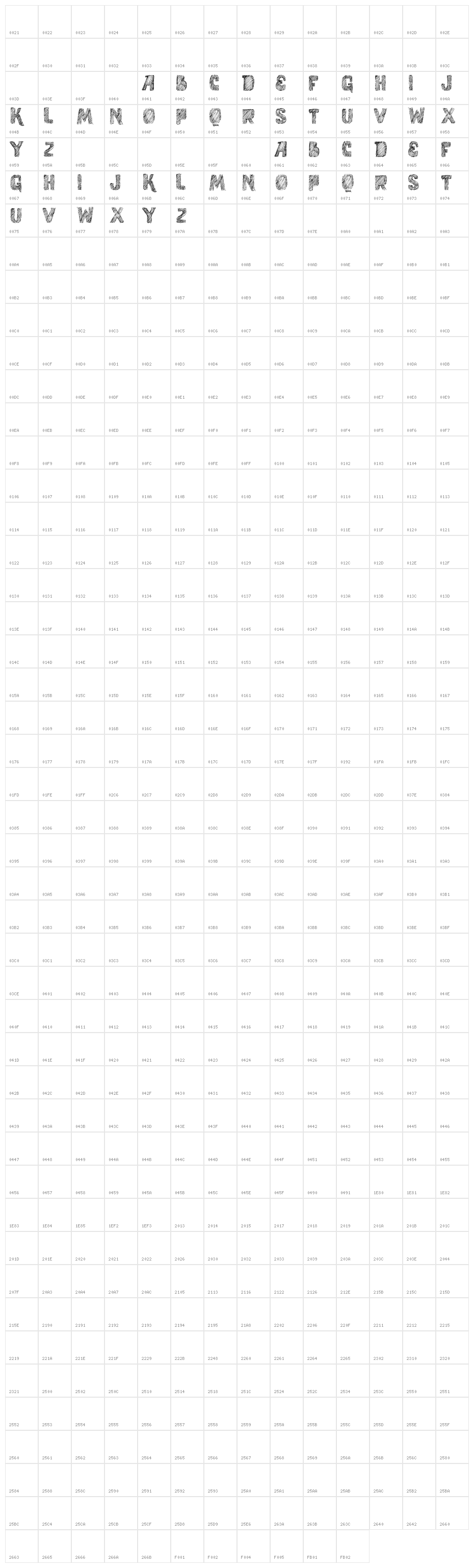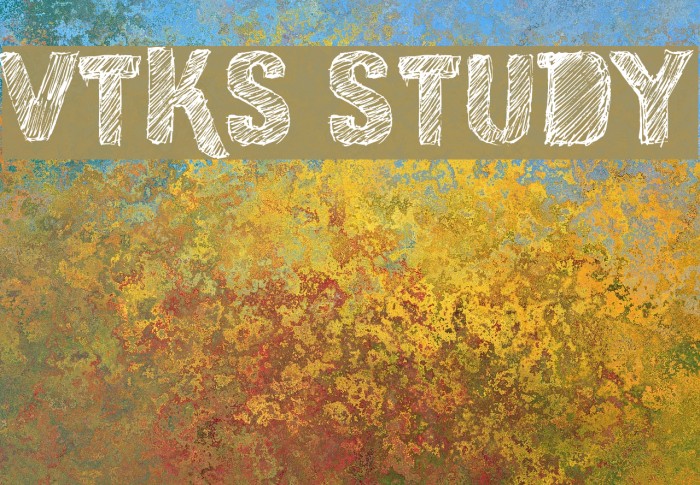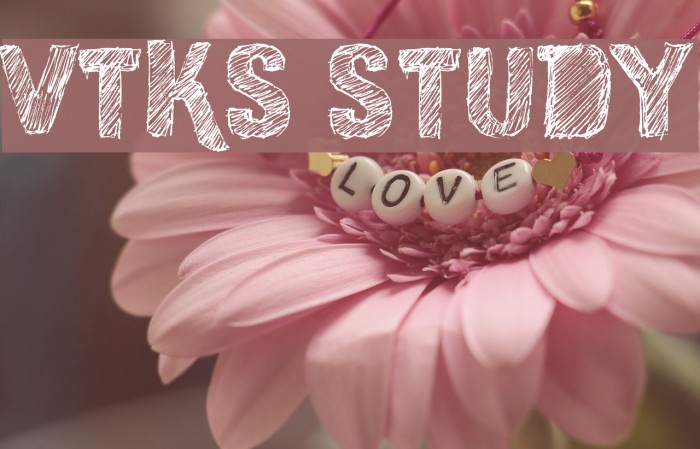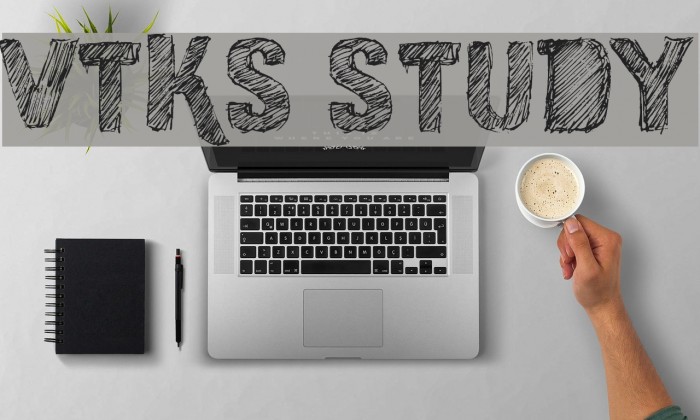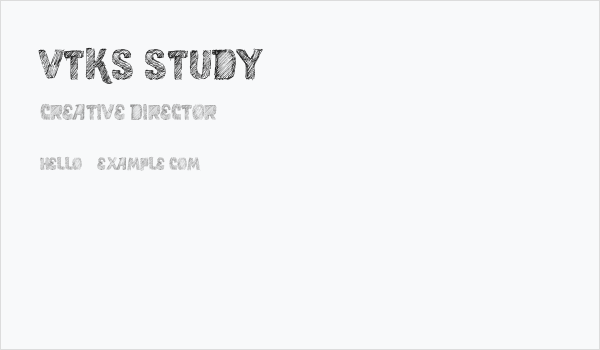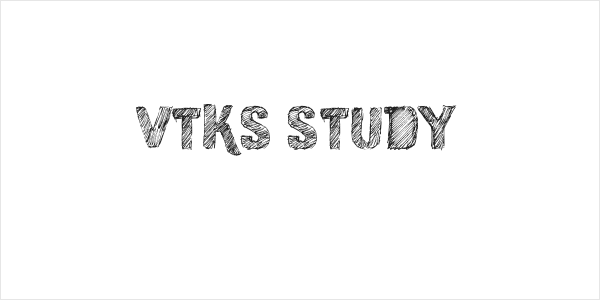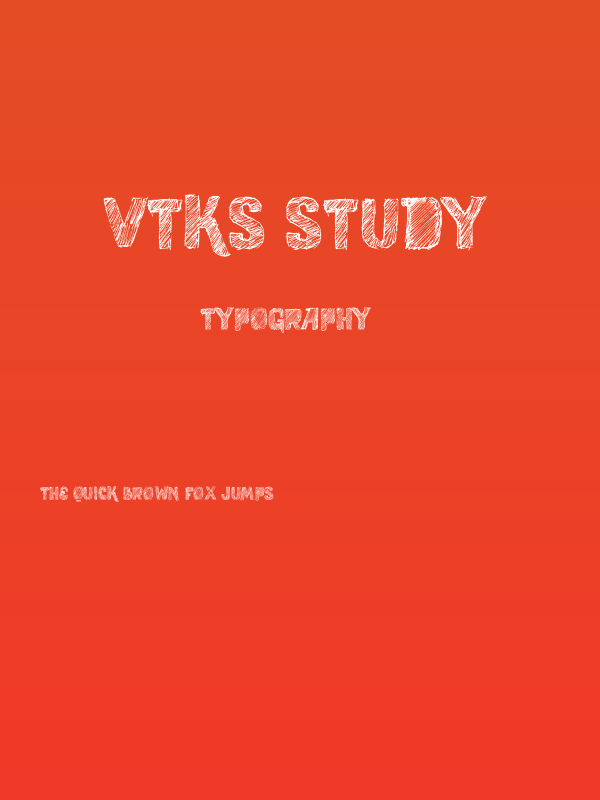
vtks study Font
vtks study Description
This font features a unique, hand-drawn style with a sketch-like appearance. The characters are bold and have a textured fill that mimics the look of pencil shading. Each letter is distinct, with a playful and artistic flair, making it stand out in any design. The uppercase letters are consistent in height, while the lowercase letters maintain a similar style, providing a cohesive look. The numbers and special characters follow the same design principles, ensuring uniformity across all glyphs. This font's artistic nature makes it ideal for creative projects.
| Overall Style | Artistic, Playful |
| Proposed Projects | Ideal for artistic projects, posters, children's books, and creative branding. |